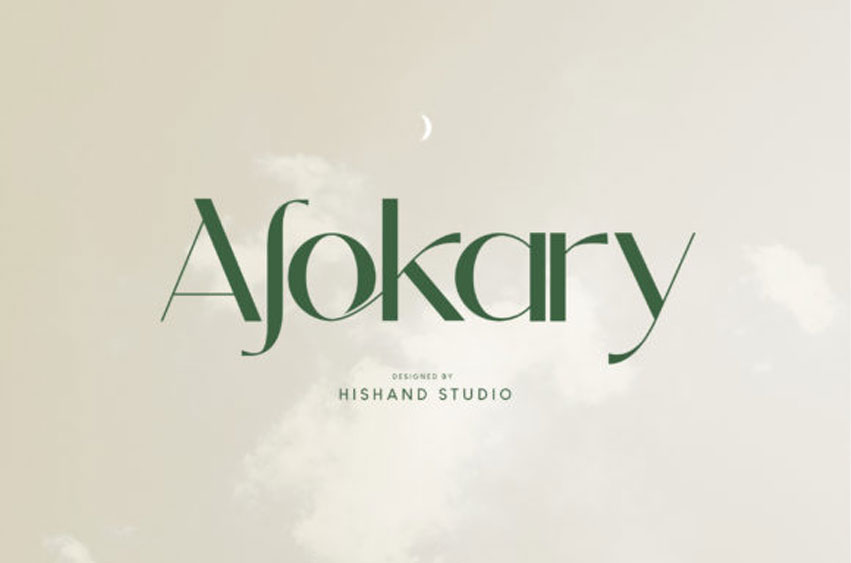
Alokary Font
Alokary Font is an aesthetic sans-serif typeface that looks elegant and timeless.
It is perfect for logo brands, marketing material, advertisements, product packaging, social media posts, clothing or fashion brands, magazine headers, and many more.